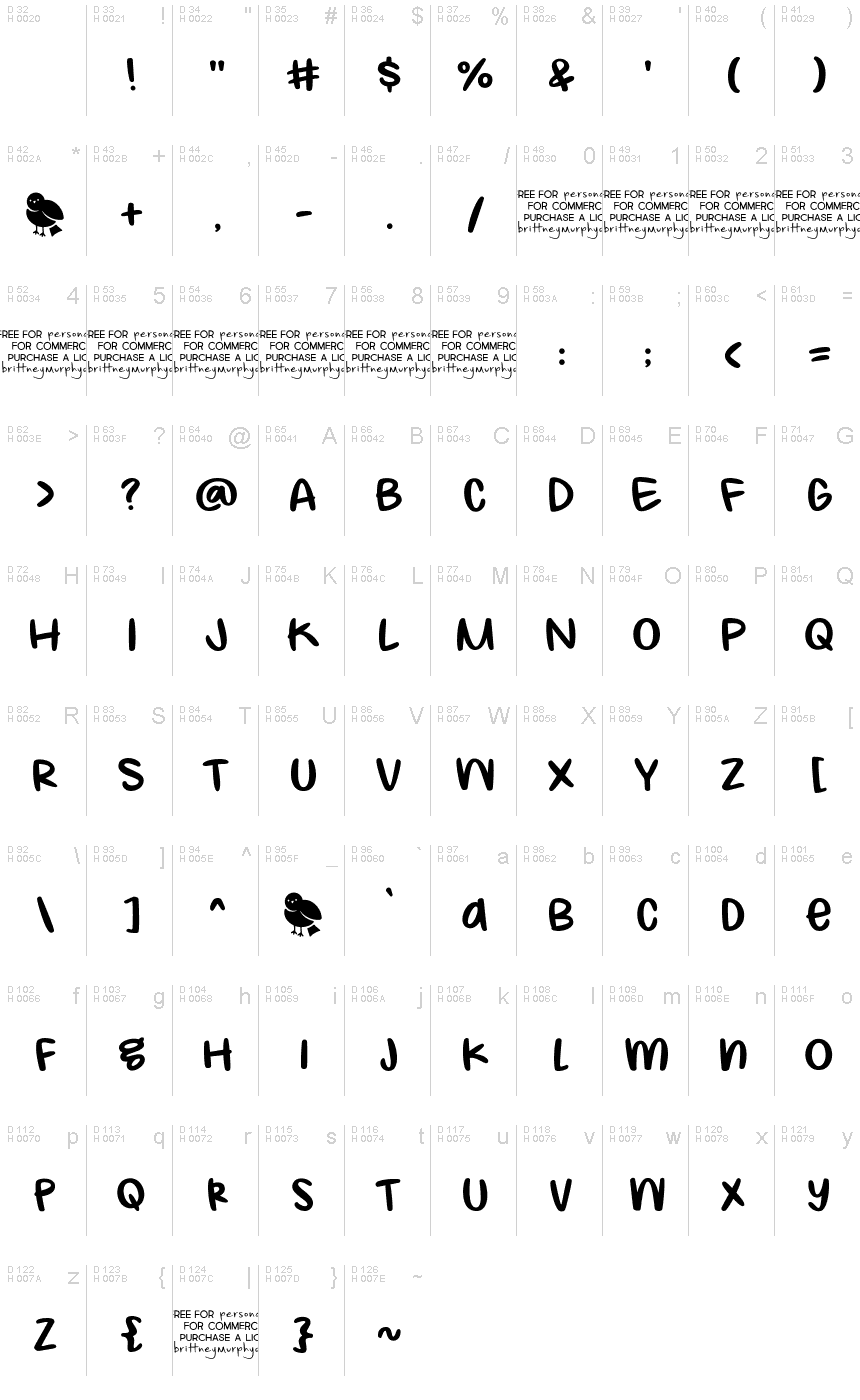
Bird_Feeder Regular
Bird Feeder by Brittney Murphy is a mixed case font with soft, rounded corners that give it a friendly, approachable feel. Use it in your projects to add some warmth and good-naturedness.